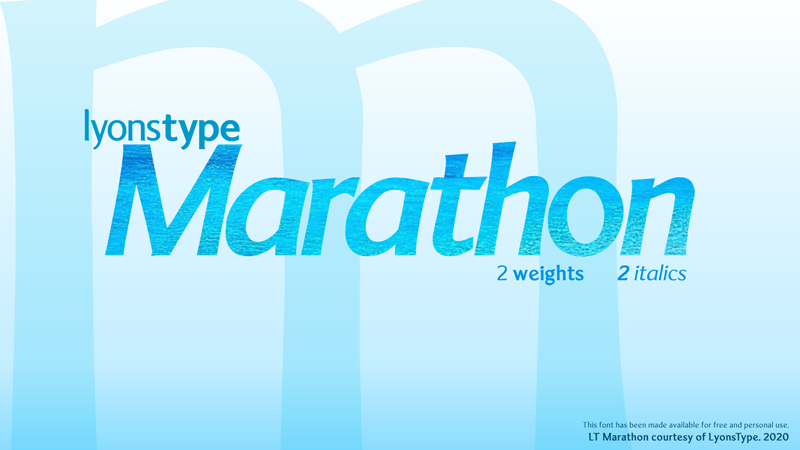
Preview and download LT Marathon Font. Created by Daniel Lyons in Basic Sans serif styles with 100% Free license.
For the font having an "ancient humanist" style, it can imaginably be used in contents such as brochures, posters, and something that revolves around ancient times. |